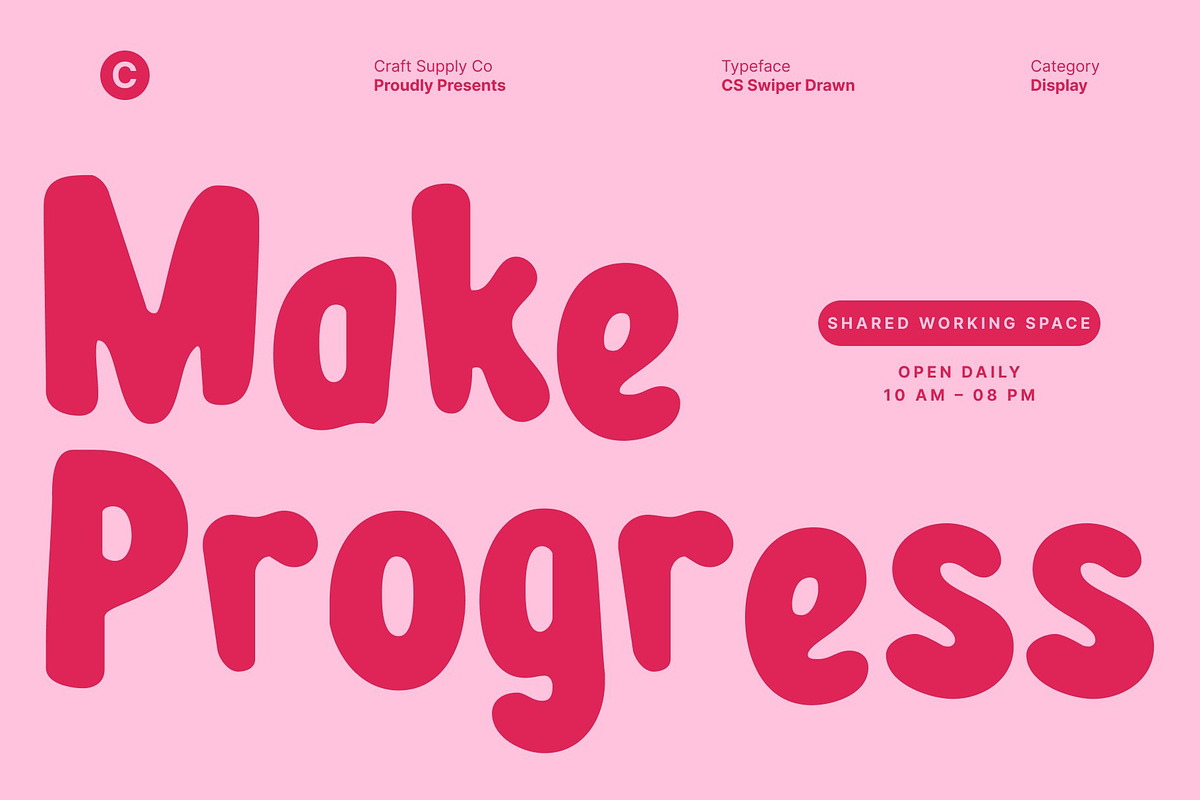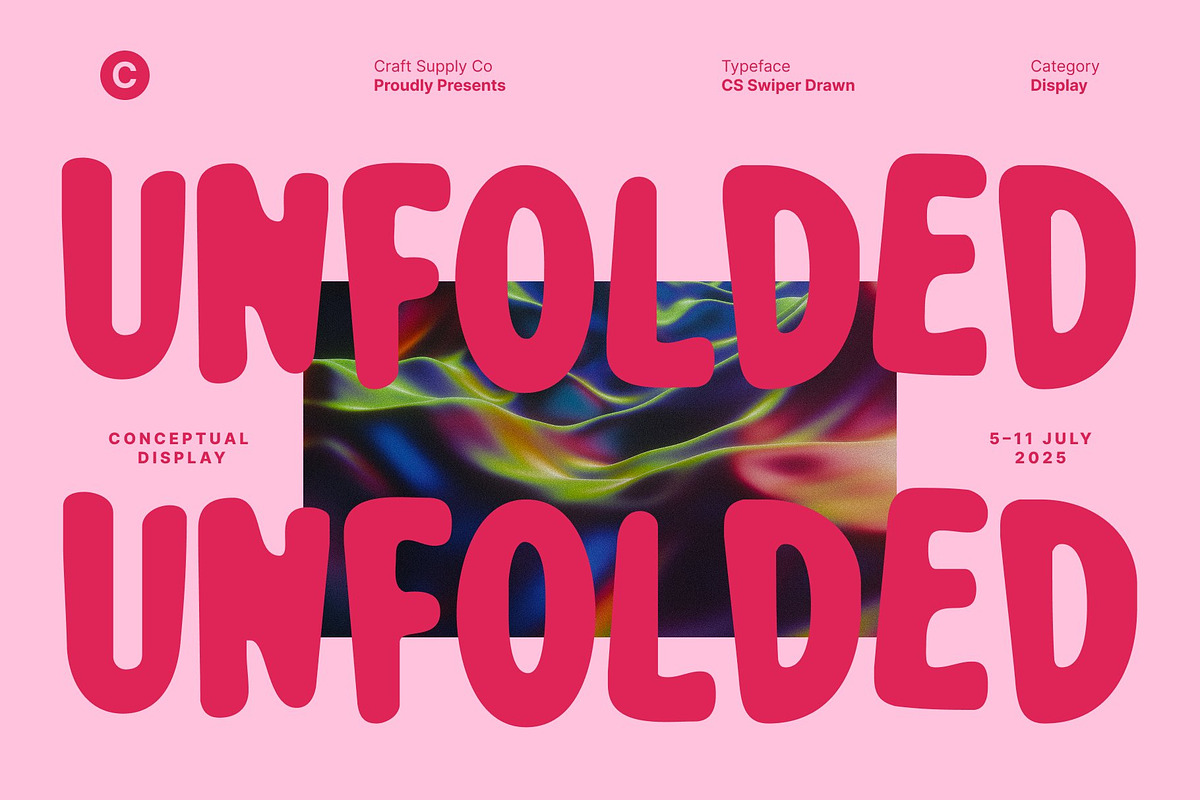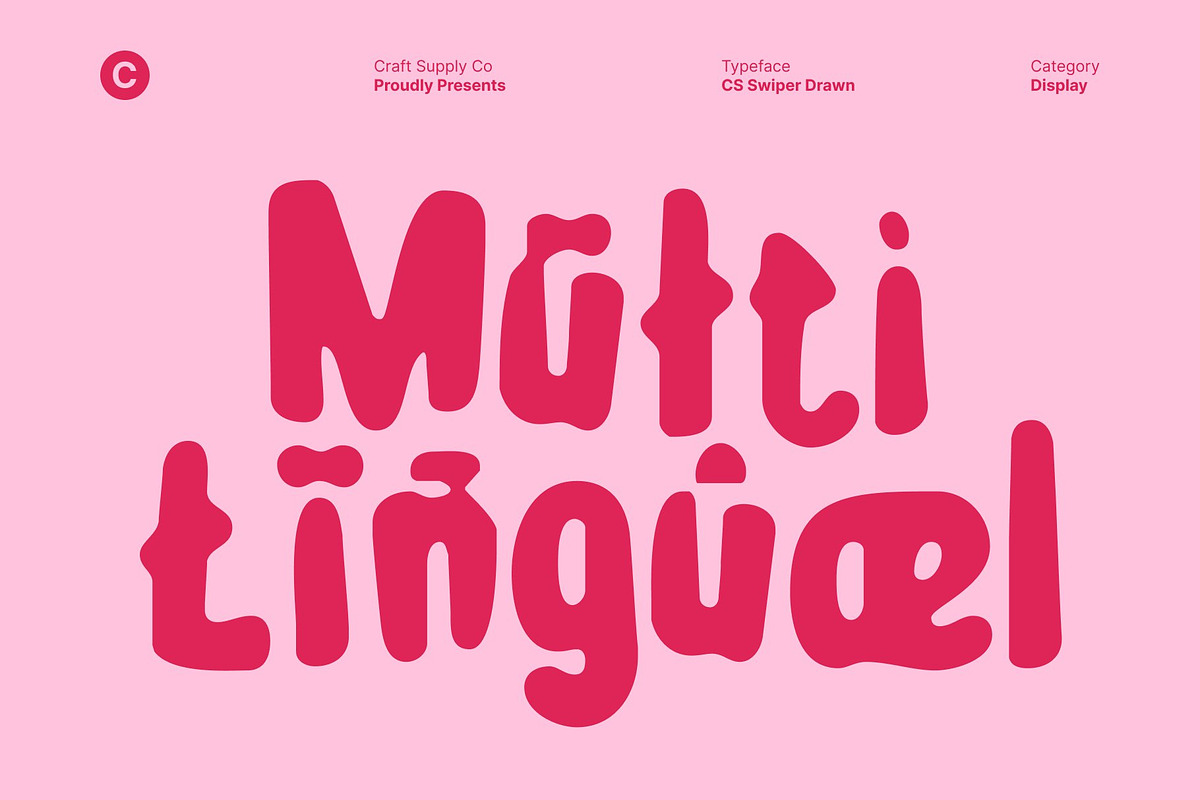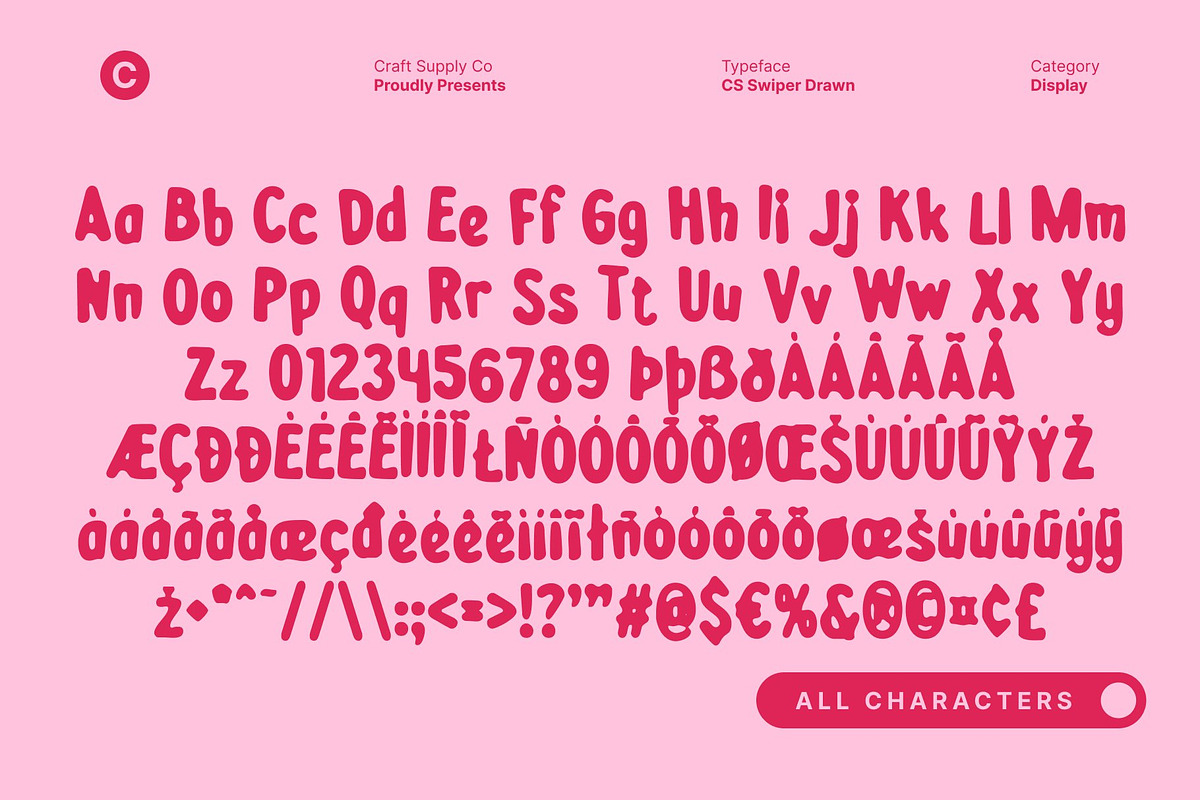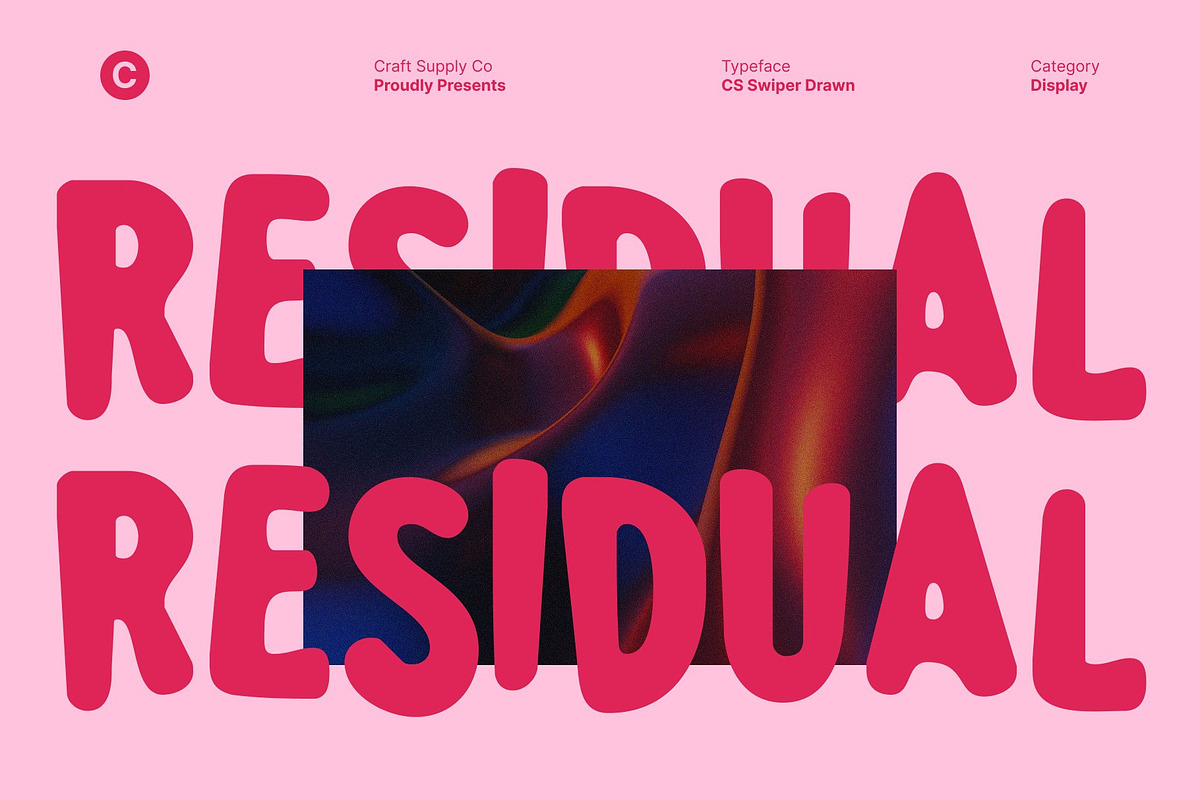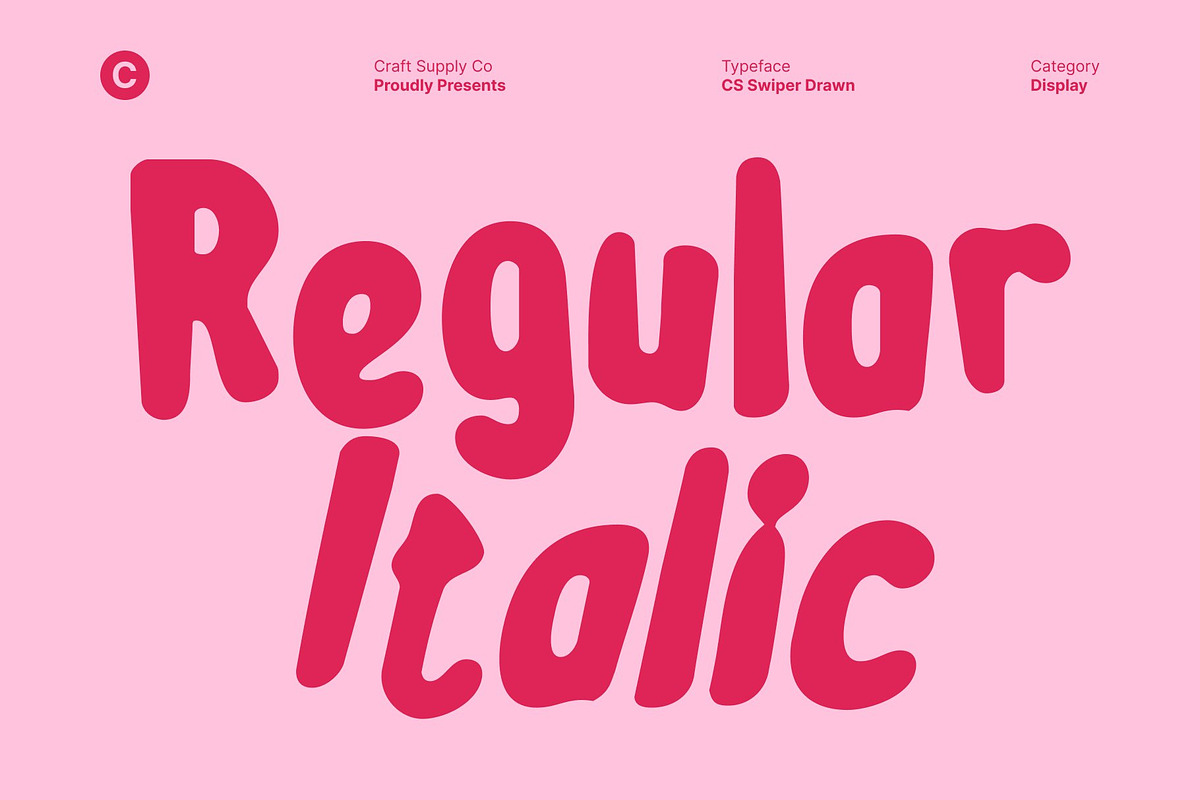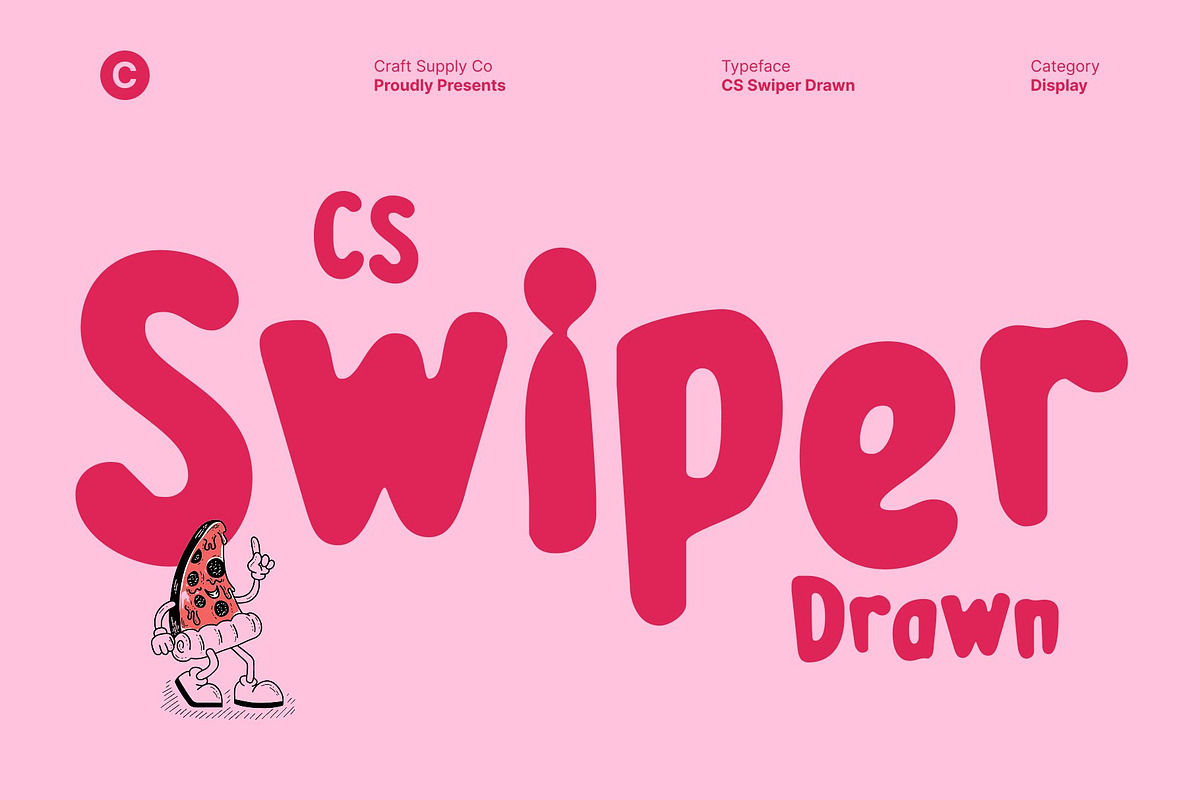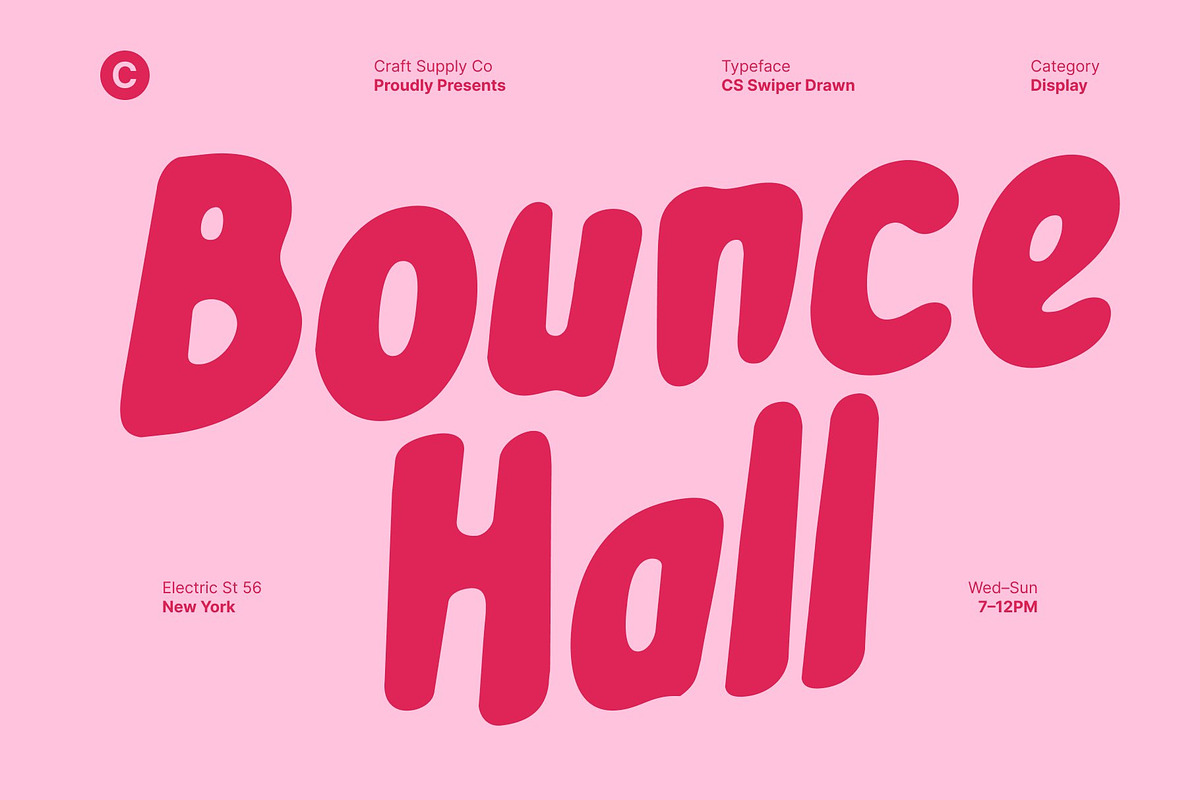
CS Swiper Drawn
CS Swiper Drawn – Cute Font with Hand-Drawn Playfulness
Smooth, Rounded, and Cheerful Letterforms This is a cute display font designed with smooth lines, rounded shapes, and friendly proportions that instantly feel warm and welcoming. Its playful construction creates a cheerful and positive mood, making every word feel light, fun, and approachable. The soft curves and balanced structure help convey joy and simplicity, perfect for designs that aim to feel friendly and inviting.
Hand-Drawn Texture for Natural Charm The drawn effect adds an artistic, handmade touch that gives extra personality. Subtle textures and organic imperfections make the letters feel natural and lively, as if they were sketched by hand. This handcrafted quality enhances the font’s cuteness, adding depth and charm while keeping the overall look soft and playful.
Perfect for Children’s and Fun-Focused Designs This font is an excellent choice for children’s books, educational materials, event posters, party invitations, and playful branding. Its joyful character helps communicate happiness and friendliness, making it ideal for projects aimed at kids, families, or casual audiences.
Versatile, Colorful, and Full of Joy Whether used in bright digital graphics or printed materials, this font adapts beautifully across different creative projects. From toy packaging and school visuals to fun social media content and cheerful branding, this font adds a lively, vibrant spirit. With its cute shapes and artistic drawn texture, delivers a delightful typographic voice full of fun and warmth.